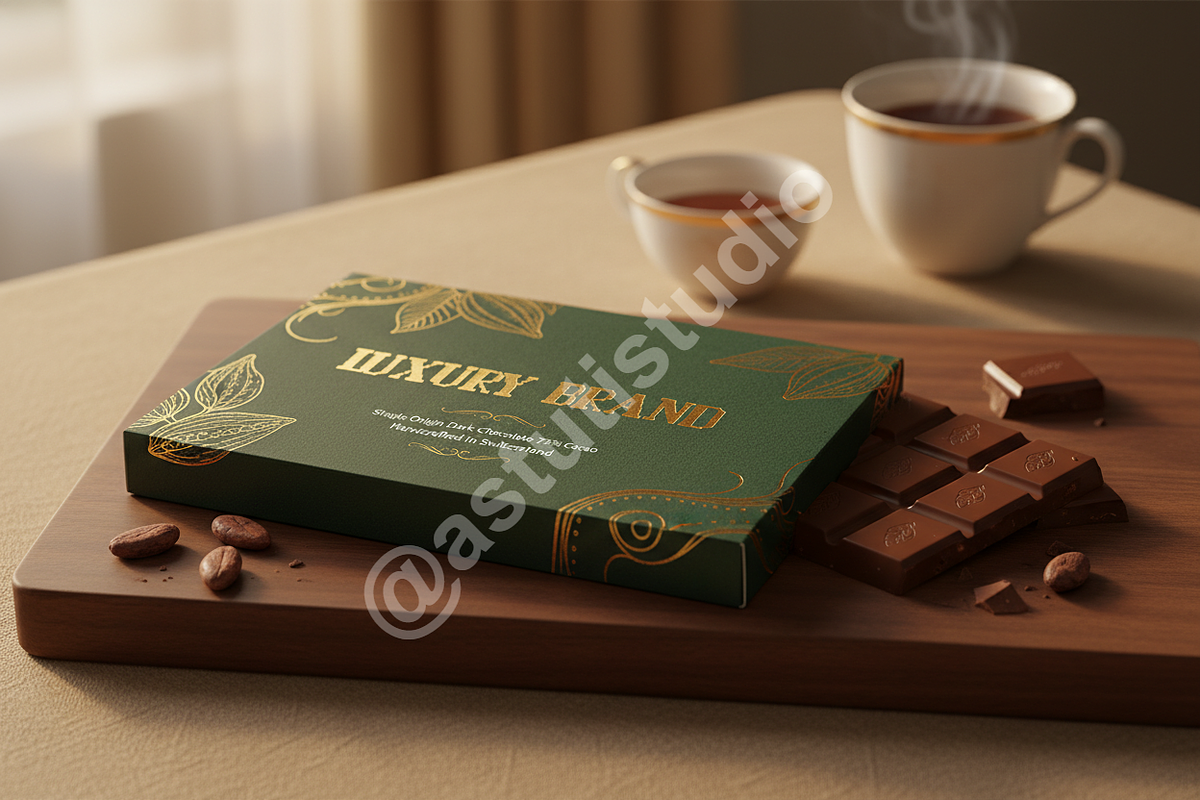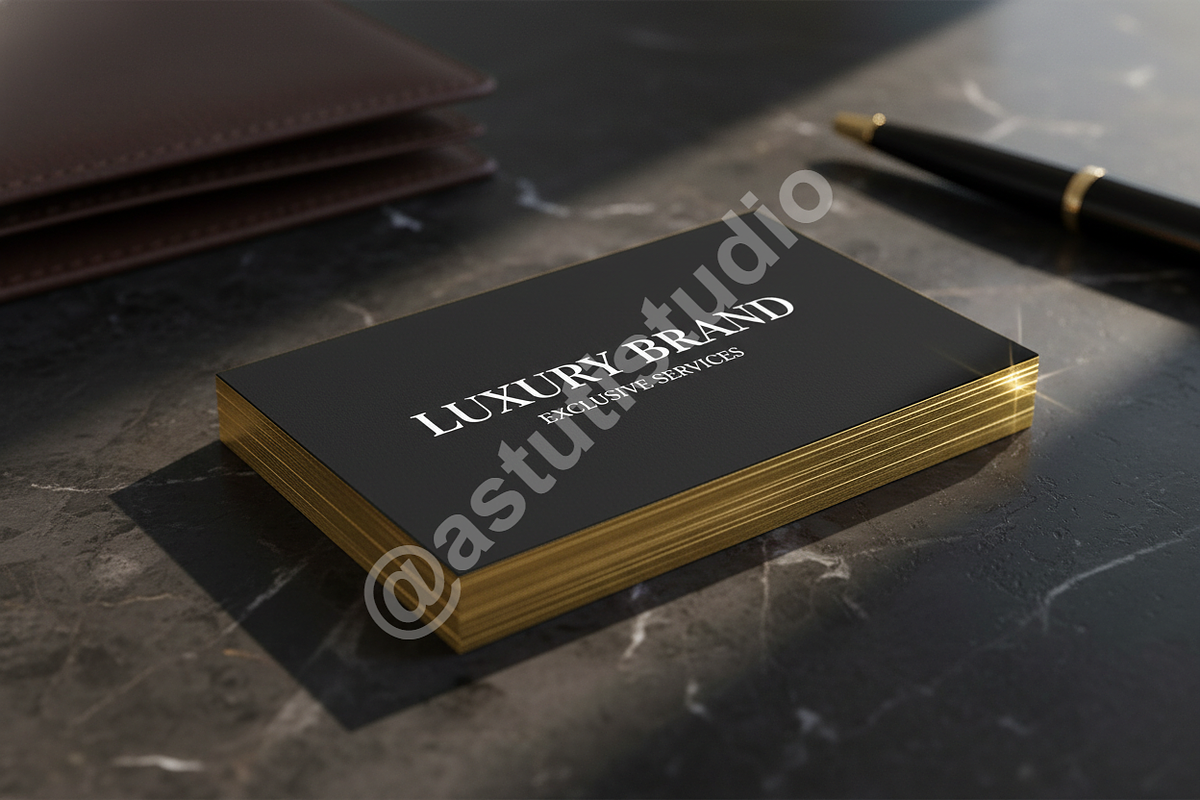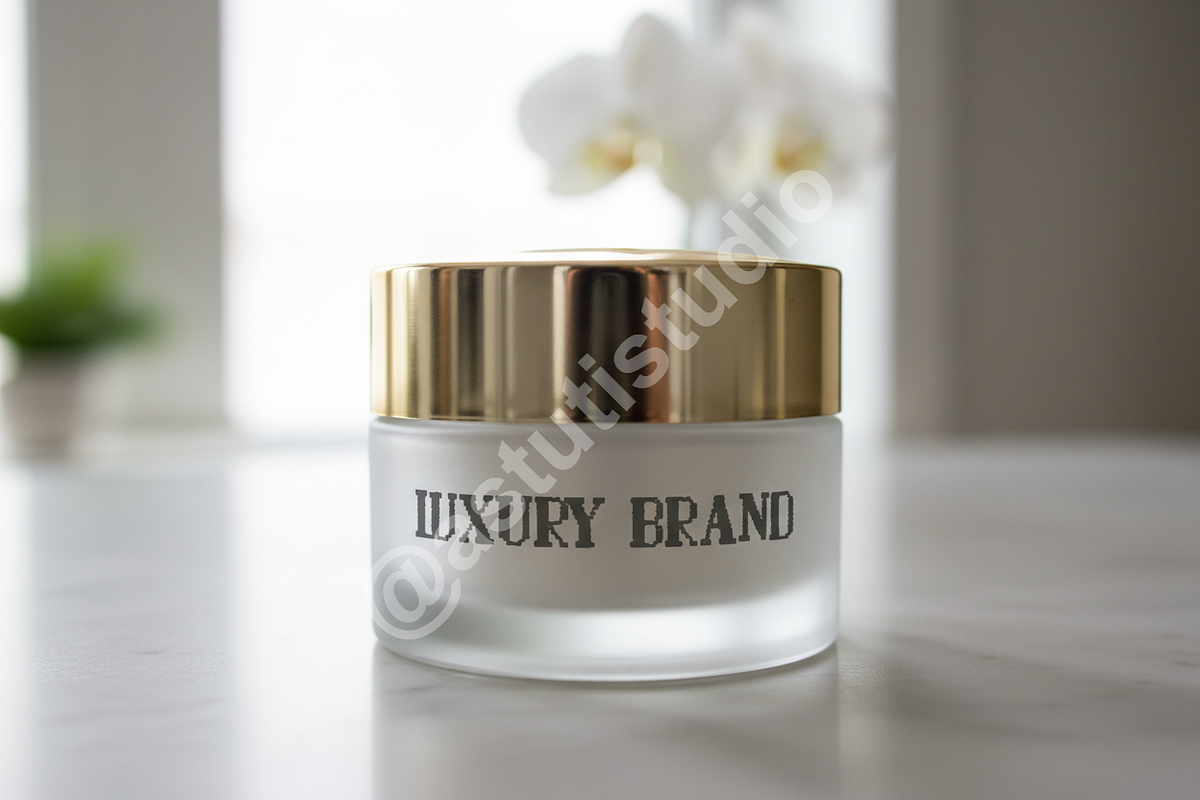
Cufawa - Elegant Serif Font for Luxu
Discover Cufawa, an exquisite serif typeface designed to elevate your projects with unparalleled elegance and sophistication. Perfect for luxury branding, high-end editorial layouts, and impactful social media campaigns, Cufawa embodies a premium aesthetic that captivates and inspires. Its refined contours and balanced proportions convey a sense of prestige, making it the ideal choice for designers seeking to impart a luxurious and professional touch.
- Elegant Serif Design: Timeless and refined, ideal for conveying prestige and sophistication across various mediums.
- Versatile Application: Seamlessly transitions from print to digital, ensuring consistent brand identity on websites, packaging, and advertising.
- Optimized Readability: Crafted for clarity and legibility, making it suitable for both headlines and body text at various sizes.
- Professional Aesthetic: Reflects a premium studio quality, enhancing any design it graces with a touch of high-end craftsmanship.